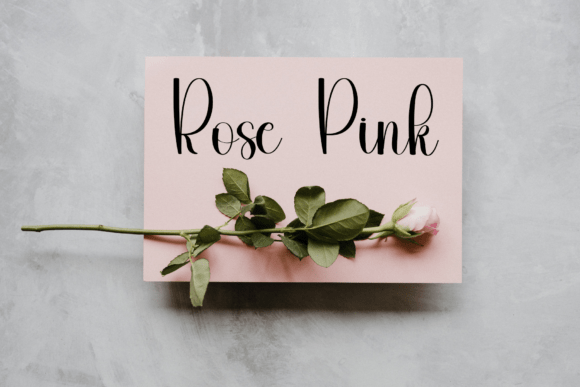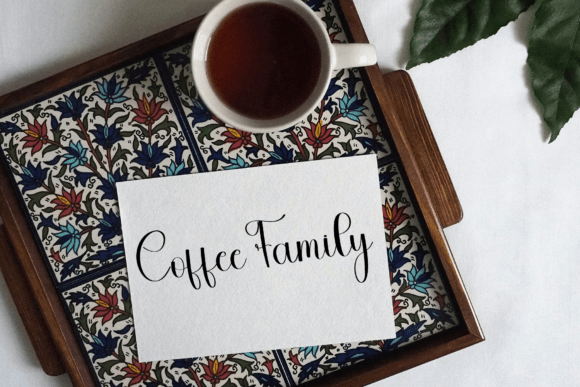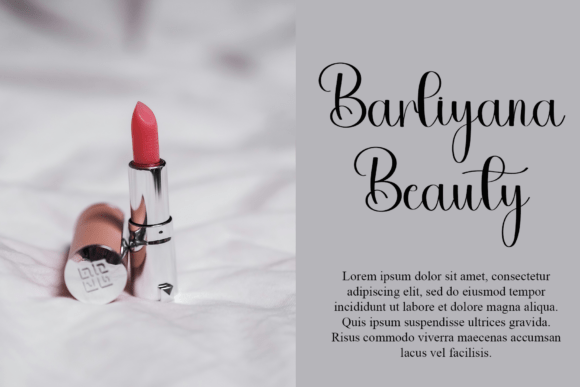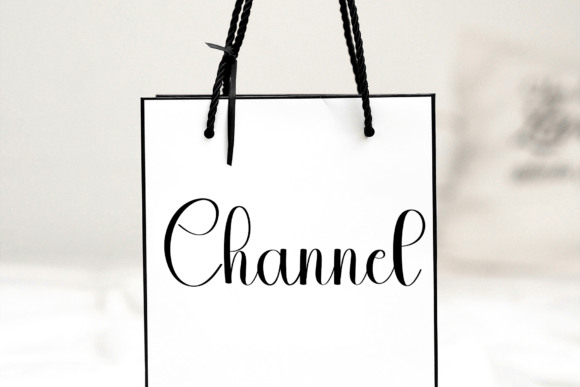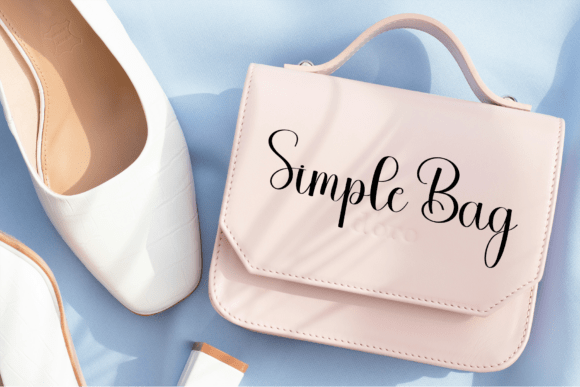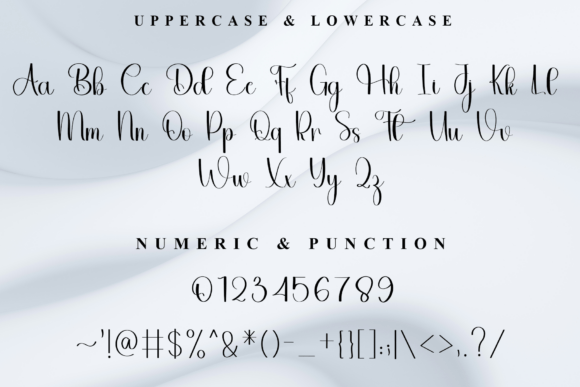
Introducing Autography Font: The Ultimate Holiday Typeface
Are you looking for a font that embodies the spirit of the holiday season? Look no further than Autography Font, a festive and merry typeface that’s perfect for adding a touch of enchantment to your designs. With its decorative elements and whimsical flair, this font is sure to bring a cheerful and nostalgic ambiance to your words.
The Perfect Font for Holiday Projects
Autography Font is specifically designed for holiday-themed projects, making it the perfect choice for greeting cards, gift tags, and other festive designs. Whether you’re a designer, crafter, or DIY enthusiast, this font is sure to add a magical touch to your creations. Its decorative elements and whimsical flair evoke the feeling of a winter wonderland, making it perfect for Christmas, Hanukkah, or any other holiday celebration.
What Makes Autography Font Special?
So, what sets Autography Font apart from other typefaces? For starters, it’s PUA encoded, which means you can access all of the amazing glyphs and ligatures with ease. This font is designed to be user-friendly, making it easy to use for designers and crafters of all skill levels. Plus, its unique and festive design ensures that your projects will stand out from the crowd.
Key Features of Autography Font
- Festive and Merry Design: Autography Font is specifically designed to capture the spirit of the holiday season, making it perfect for festive designs.
- Decorative Elements and Whimsical Flair: This font features decorative elements and a whimsical flair that adds a touch of enchantment to your designs.
- PUA Encoded: With PUA encoding, you can access all of the amazing glyphs and ligatures with ease.
- User-Friendly: Autography Font is designed to be easy to use, making it perfect for designers and crafters of all skill levels.
Tips and Tricks for Getting the Most Out of Autography Font
- Experiment with Different Sizes and Colors: Autography Font looks great in a variety of sizes and colors, so don’t be afraid to experiment and find the perfect combination for your design.
- Pair with Other Fonts: Autography Font pairs well with other fonts, so try pairing it with a simple sans-serif font for a unique and interesting look.
- Use for a Variety of Holiday Projects: Autography Font is perfect for a variety of holiday projects, including greeting cards, gift tags, and holiday-themed social media graphics.
- What is Autography Font?: Autography Font is a festive and merry typeface designed specifically for holiday-themed projects.